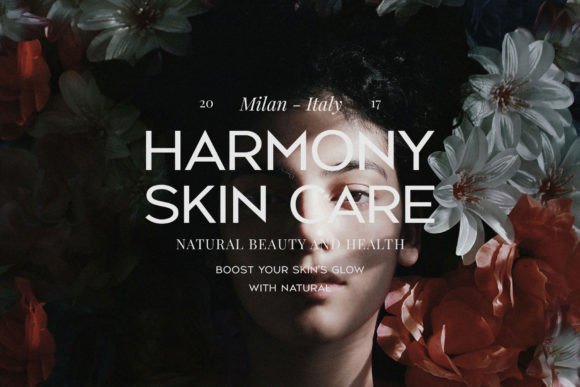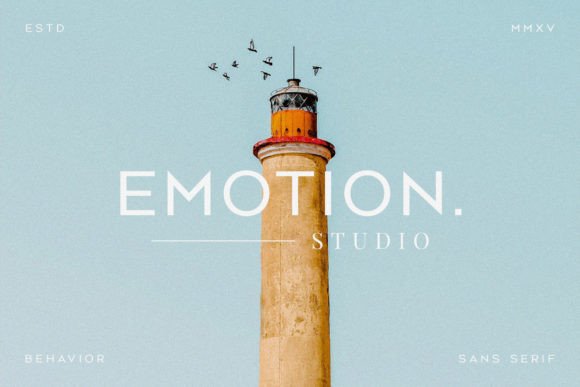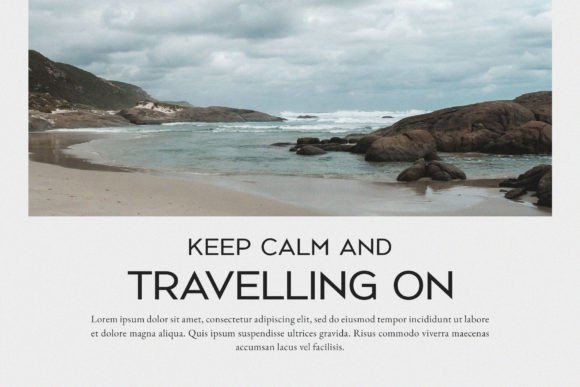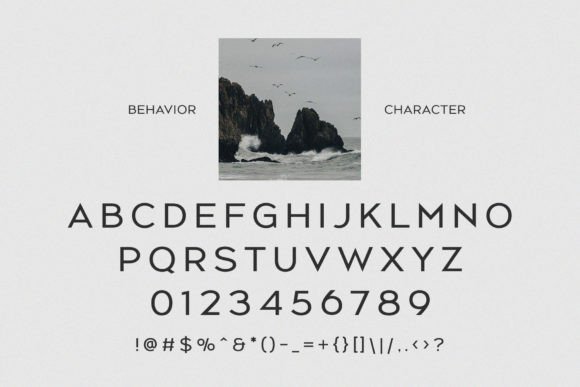
Introducing Behavior Font: The Epitome of Elegance and Sophistication
In the realm of typography, few fonts manage to strike a balance between elegance, sophistication, and legibility. However, Behavior Font achieves this delicate equilibrium with remarkable finesse. As a delicate and thin sans-serif font with a minimalist design, Behavior is poised to elevate high-end design projects and branding endeavors to unprecedented heights of refinement and style.
The Design Philosophy Behind Behavior Font
Behavior Font’s design is predicated on the principles of minimalism and elegance. Its slender letterforms and clean lines are meticulously crafted to exude a refined and elegant appearance. This makes it an exemplary choice for designers and crafters who are tasked with creating visually stunning and sophisticated designs that demand a high level of typographic excellence.
Key Features of Behavior Font
- Slender Letterforms: The font’s slender letterforms are designed to convey a sense of elegance and sophistication, making it perfect for high-end branding and design projects.
- Clean Lines: The clean lines of Behavior Font contribute to its refined appearance, ensuring that it remains legible even at smaller font sizes.
- Minimalist Design: The font’s minimalist design ensures that it can be seamlessly integrated into a wide range of design projects, from luxury branding to editorial design.
- Sophisticated Aesthetic: Behavior Font’s sophisticated aesthetic makes it an excellent choice for designers who aim to create visually stunning and impactful designs.
Applications of Behavior Font
Behavior Font’s versatility and elegance make it suitable for a variety of applications, including:
- High-End Branding: The font’s refined and elegant appearance makes it perfect for luxury brands that aim to convey a sense of sophistication and exclusivity.
- Editorial Design: Behavior Font’s legibility and aesthetic appeal make it an excellent choice for editorial design projects, such as magazines, newspapers, and books.
- Web Design: The font’s clean lines and minimalist design ensure that it remains legible on digital platforms, making it suitable for web design projects.
- Packaging Design: Behavior Font’s sophisticated aesthetic makes it an excellent choice for packaging design projects that require a high level of typographic elegance.
Why Choose Behavior Font?
There are several reasons why designers and crafters should consider Behavior Font for their next project:
- Elegance and Sophistication: The font’s elegant and sophisticated appearance makes it perfect for high-end design projects and branding endeavors.
- Legibility: Behavior Font’s clean lines and slender letterforms ensure that it remains legible even at smaller font sizes.
- Versatility: The font’s minimalist design makes it suitable for a wide range of design projects, from luxury branding to editorial design.
- Modern Aesthetic: Behavior Font’s modern aesthetic ensures that designs created with the font remain contemporary and visually stunning.
In conclusion, Behavior Font is a delicate and thin sans-serif font that embodies elegance, sophistication, and legibility. Its slender letterforms, clean lines, and minimalist design make it perfect for high-end design projects and branding endeavors. With its versatility, modern aesthetic, and refined appearance, Behavior Font is poised to become a go-to choice for designers and crafters who aim to create visually stunning and impactful designs.